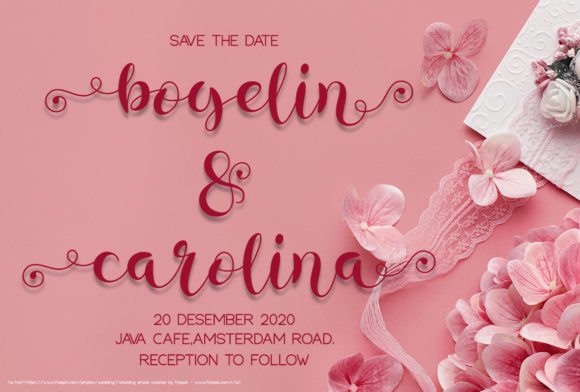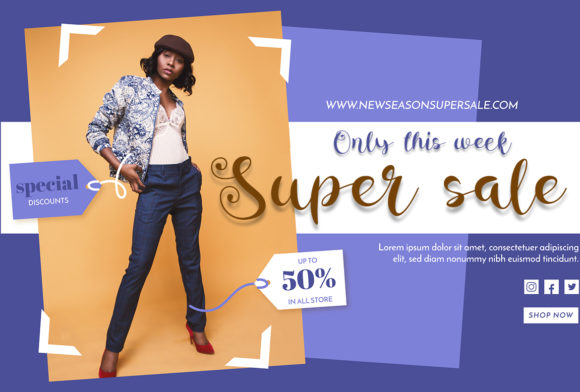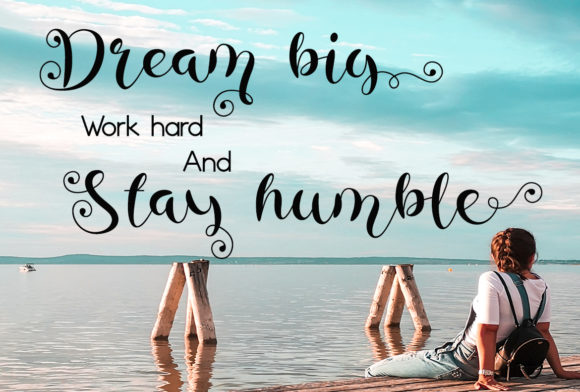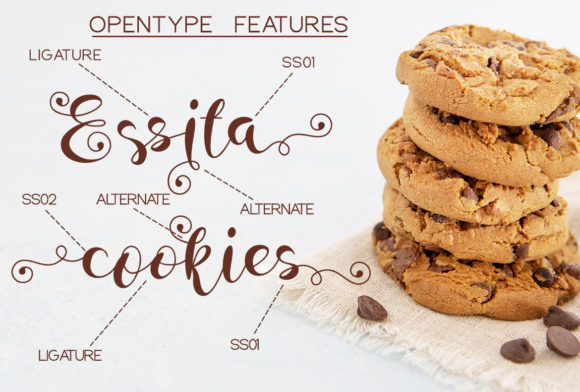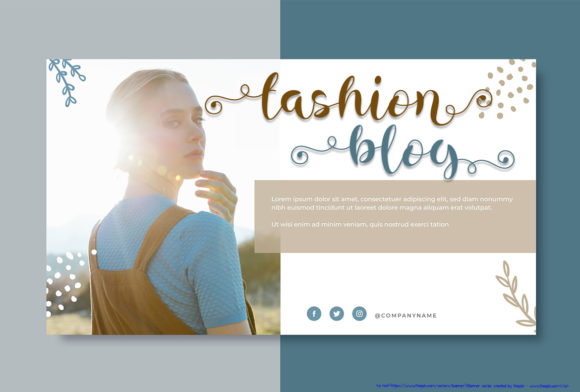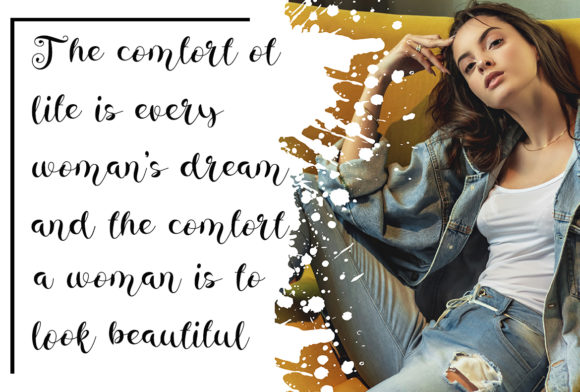
The Amellya Font: A Delicate and Elegant Handwritten Masterpiece
I’ll never forget the moment I stumbled upon the Amellya font. I was working on a project for a client who wanted a elegant and sophisticated look, but I was struggling to find the right font. That’s when I discovered Amellya, and it instantly became my go-to choice. Its delicate and well-rounded letters make it a masterpiece, and I fell in love with its incredibly versatile style.
- ✨ Delicate and elegant handwritten style
- ✅ Well-rounded letters that exude sophistication
- 💫 Incredibly versatile and easy to pair with other fonts
- 🎨 Perfect for a variety of design projects, from branding to invitations
While Amellya is an amazing font, there are a few things to keep in mind:
- 🤔 Some letters may appear a bit narrow, so be mindful of spacing
- ⚠️ Not ideal for body text, as it’s best suited for headlines and titles
- Experiment with OpenType features, such as stylistic alternates and glyphs, to add visual interest
- Access OpenType features, such as ligatures and stylistic sets, to enhance your design
The Story Behind Amellya
Amellya was designed with the intention of creating a beautiful, elegant handwritten font that would evoke a sense of sophistication. Its creator drew inspiration from classic calligraphy and modern typography to craft a unique and versatile font.
A: Amellya is perfect for headlines, titles, and short text passages. Use it to add a touch of elegance to your design.